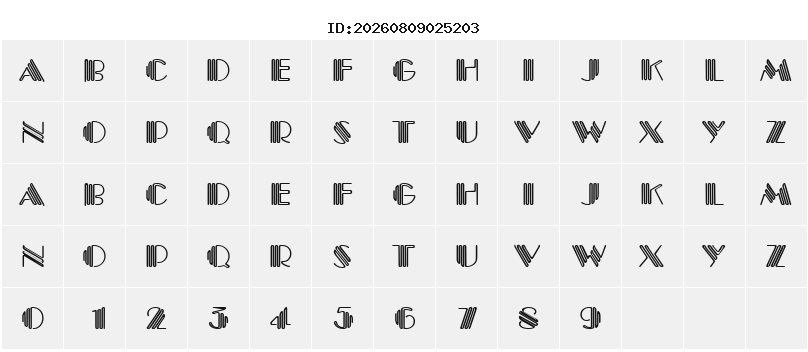
• Font Name: Piccolo
• Full Font Name: Piccolo Regular
About Piccolo.ttf
Piccolo.ttf is a modern, elegant sans-serif font designed for ultimate readability and visual harmony. Perfect for branding, headlines, web design, and print materials.